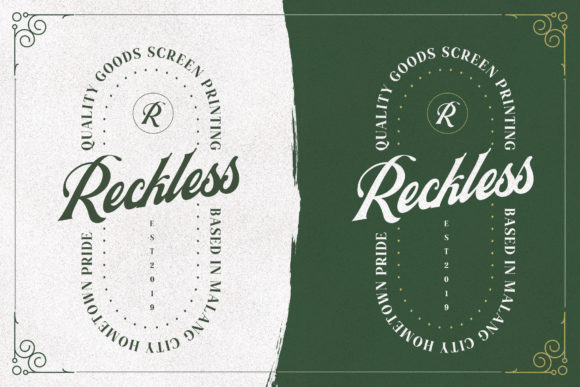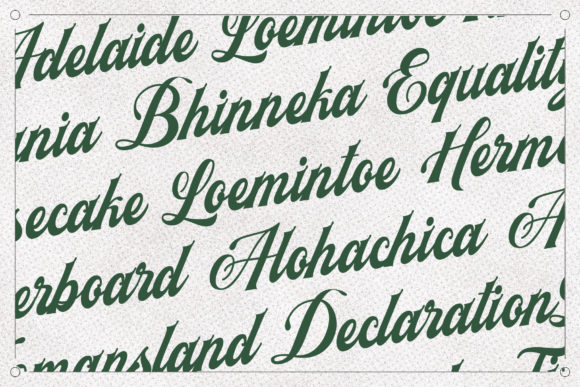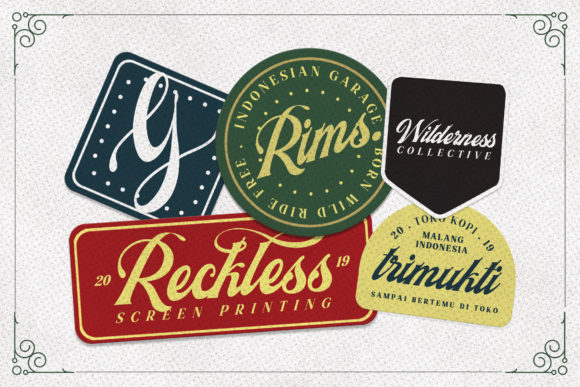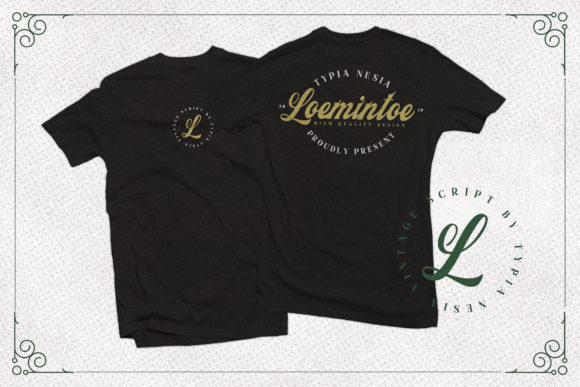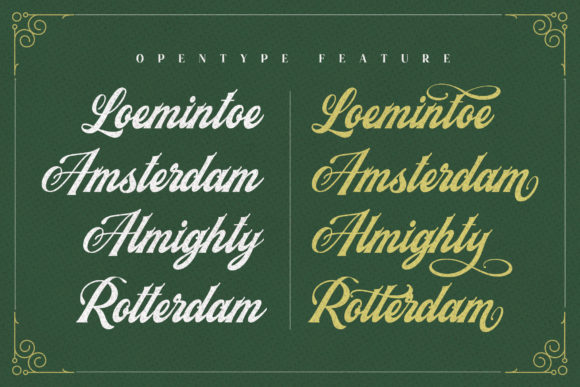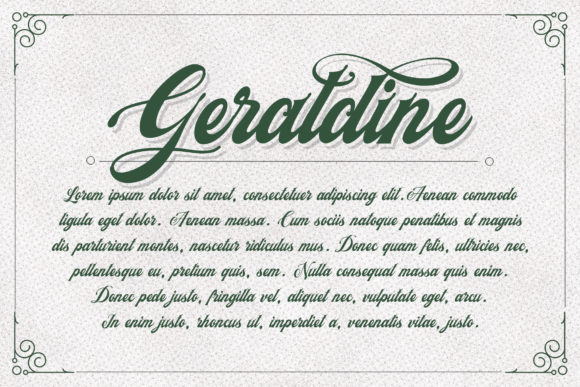
Introduction to Loemintoe Font
Remember the thrill of finding that perfect font for your creative project? The one that instantly elevates your design and transports you back to a bygone era? For many designers, that moment is a cherished experience. It’s a reminder that, with the right tools, our imagination knows no bounds.
One such treasure is the Loemintoe Font, a vintage script that exudes a classy and playful vibe. Its nostalgic look is sure to captivate designers and non-designers alike. Whether you’re working on a personal project or a commercial design, the Loemintoe Font is an invaluable resource that can add a touch of sophistication to your work.
Key Features of Loemintoe Font
- Unique blend of modern and vintage design elements, making it an ideal choice for creative projects.
- High-quality font with transparent background, allowing for seamless integration with various design resources.
- Designed to be versatile and adaptable, suitable for a wide range of creative projects, from branding to publishing.
- Can be easily customized to fit specific design needs, with features like ligatures and contextual alternates.
Honest Review: Loemintoe Font
One of the standout features of this font is its high quality, making it perfect for designs that require a professional touch. The transparent background is also a great asset, allowing for seamless integration into any design.
- ✨ Versatile and easy to use
- ✨ High-quality design that’s perfect for professional projects
- ✨ Transparent background for easy design integration
However, I do have to mention a few limitations:
- ⚠️ Limited character set may not be suitable for extensive typing
- ⚠️ May not be suitable for small text due to its bold nature
Overall, I’m impressed with the Loemintoe Font, and I think it’s a great addition to any designer’s toolkit. While it may have a few limitations, its high quality and versatility make it a valuable resource for any creative project.
The Loemintoe Font is a versatile design resource that can be used in a variety of creative projects, such as logos, business cards, and brochures. It’s also great for use in digital design projects, such as website headers and social media graphics.